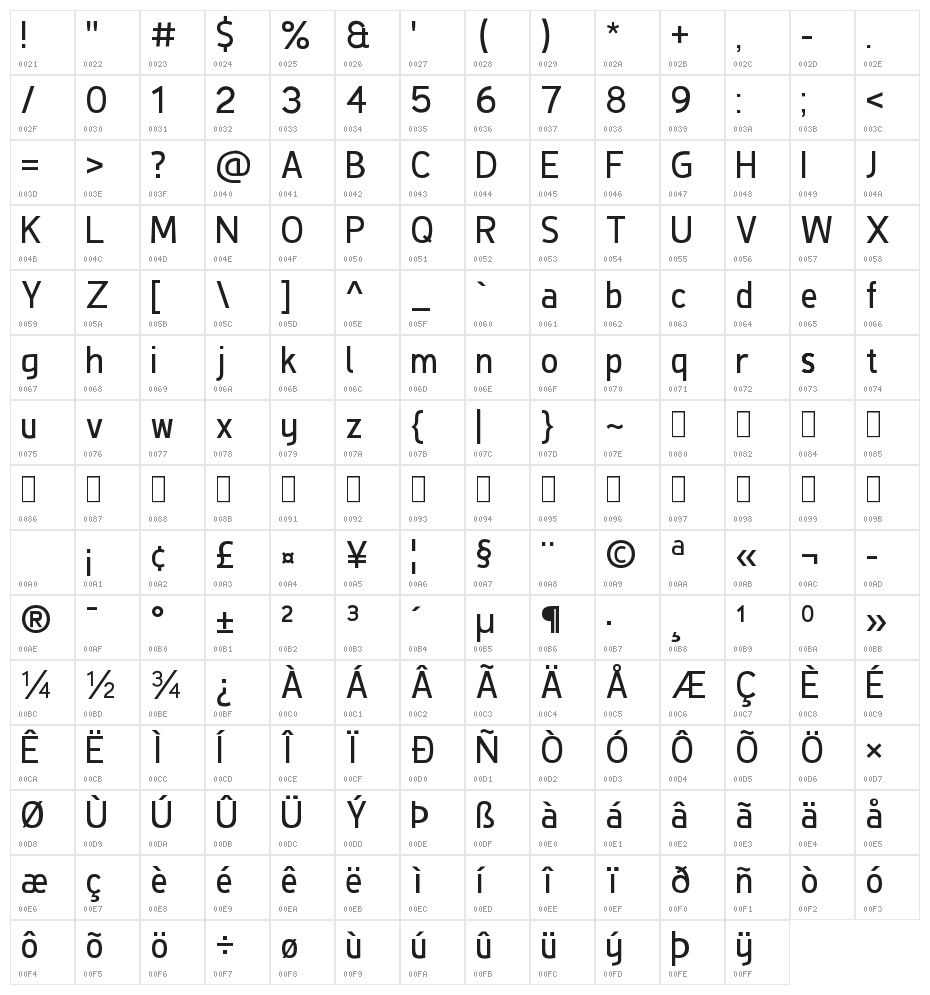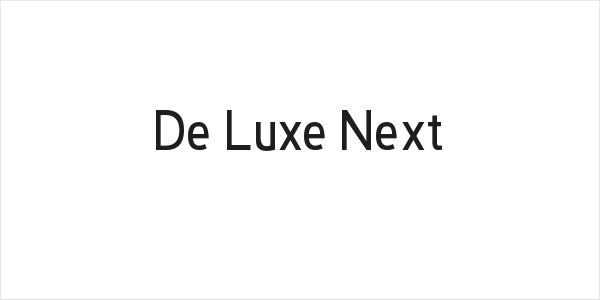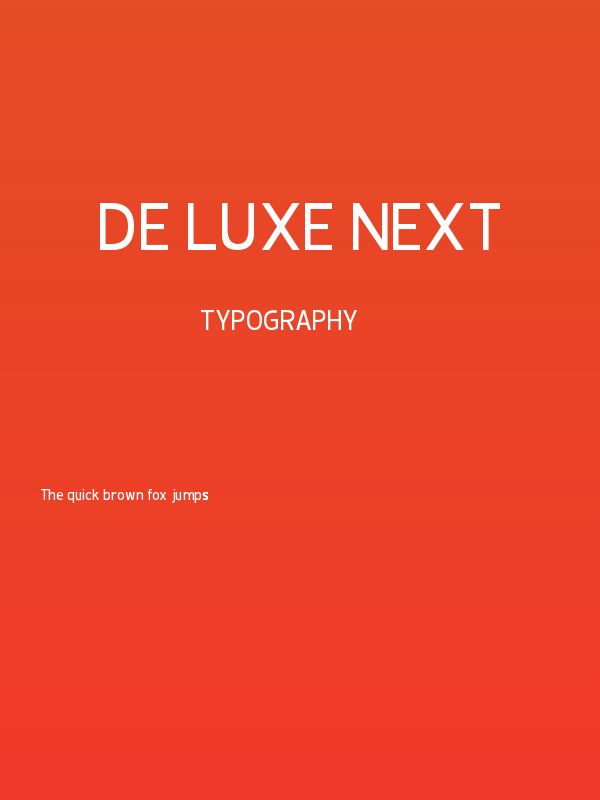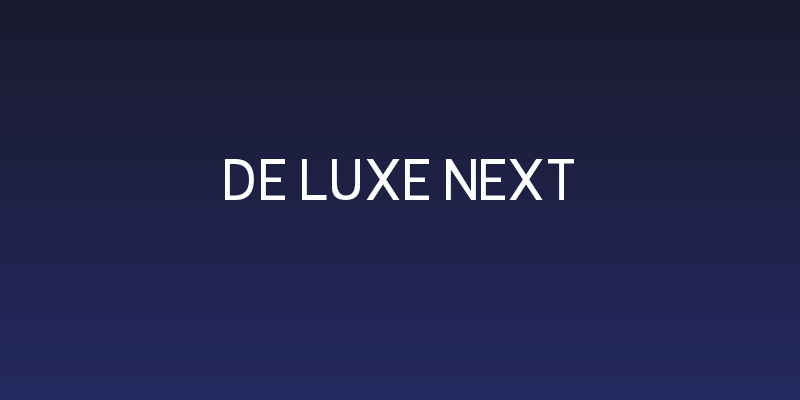
De Luxe Next Font
De Luxe Next Description
This font features a clean and modern sans-serif design, characterized by its geometric shapes and uniform stroke widths. The uppercase letters are bold and assertive, while the lowercase letters maintain a consistent and harmonious appearance. The numerals are straightforward and easy to read, making them suitable for various applications. Special characters are well-defined, adding versatility to the font's usage. The overall style is sleek and contemporary, ideal for projects that require a professional and polished look.